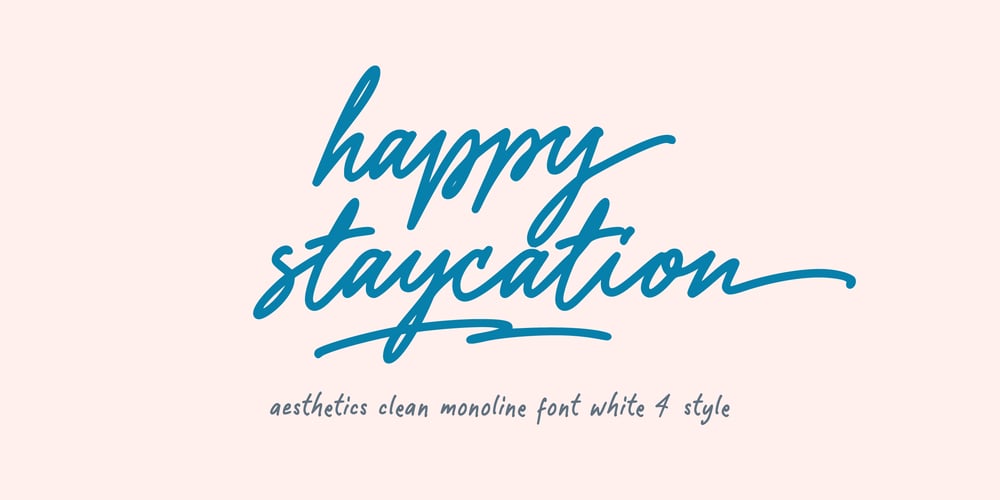
Happy Staycation Font Family was designed by Winarno, Eko Kurniawan and published by Enbe Studio. Happy Staycation contains 4 styles and family package options. This font combines the beauty of a single, uniform line with a touch of unexpected uniqueness. Happy Staycation offers a clean, minimalist feel, but with a slightly playful and irregular letter character. Each letter is designed with clean proportions but has elements that give it an unconventional feel, creating a fun and dynamic impression.Happy Staycation is perfect for creative projects that want to display a modern look with a little twist. Whether it’s for logos, branding, posters, or social media, Happy Staycation provides a fresh and unique feel that can attract attention. The combination of high readability and irregular details makes this font perfect for creating a memorable impression in your designs.Have a great day! 😉